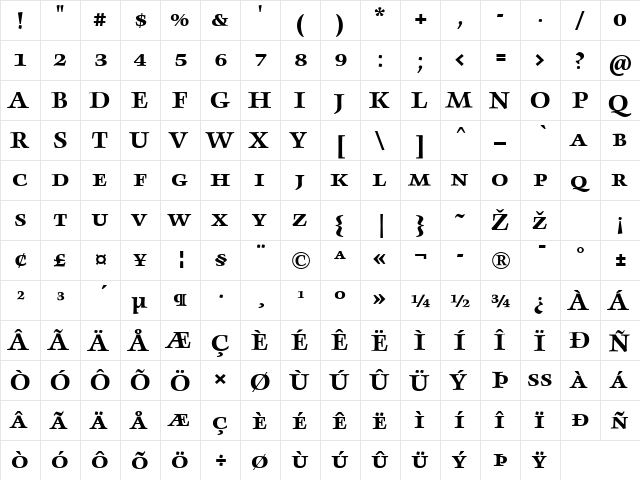
AngkoonTF-BoldSC Regular
| Foundry | Xavier Dupre, published by FontShop International for the FontFont Library |
| Designer | Xavier Dupre |
Design Context for AngkoonTF-BoldSC Typeface
AngkoonTF-BoldSC offers clean, dependable letterforms without strong stylistic allegiance, making it a practical choice for designers who need flexibility. The heavy weight commands attention and anchors typographic hierarchies.